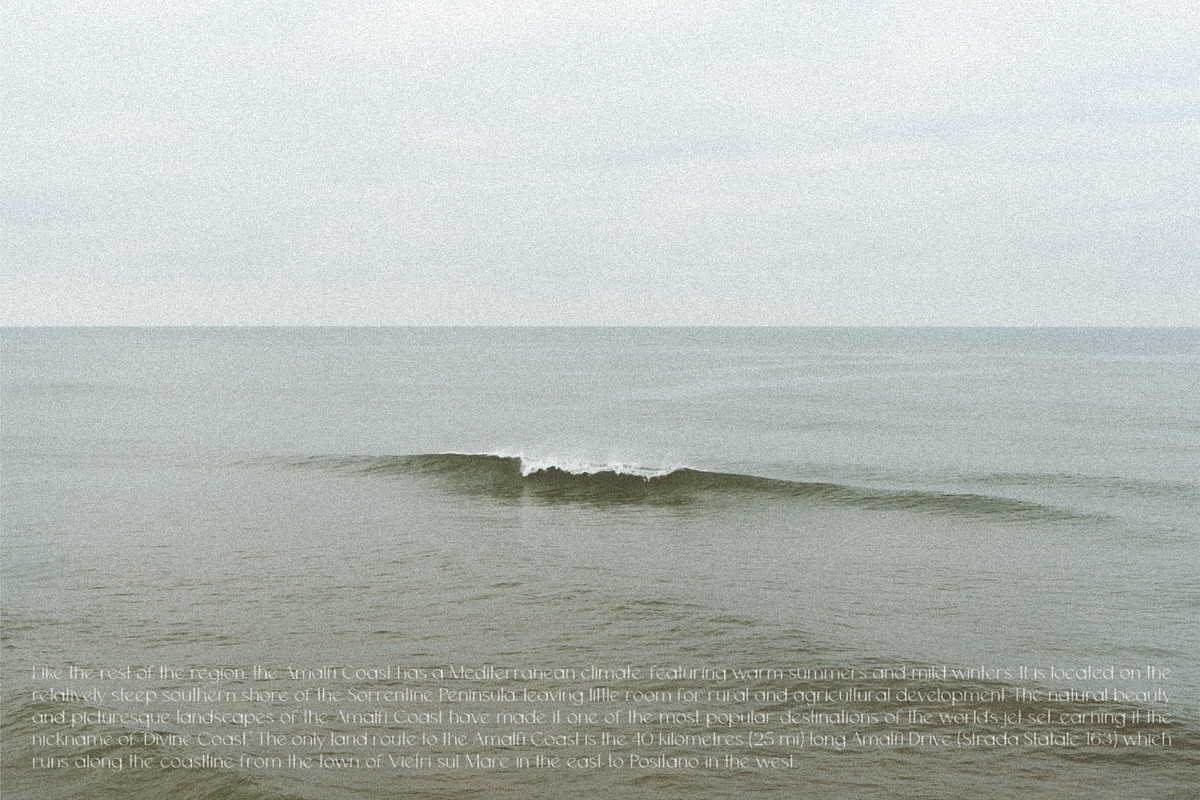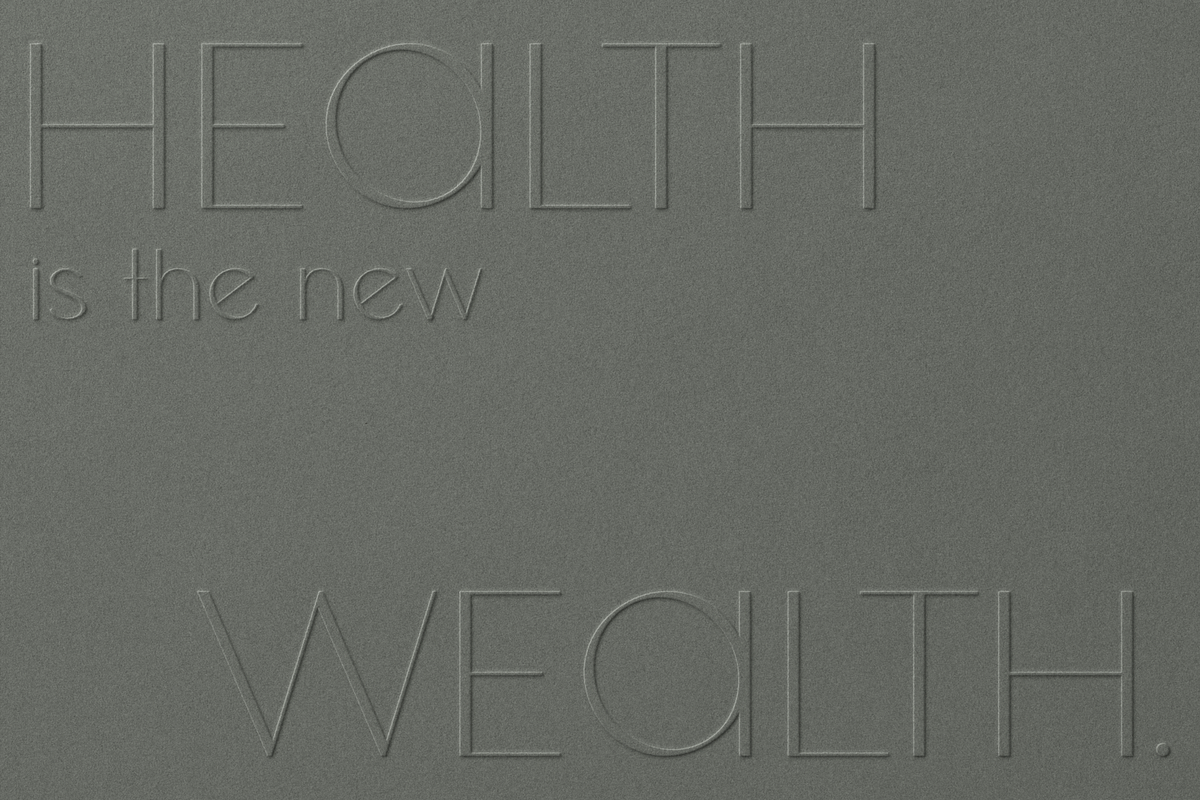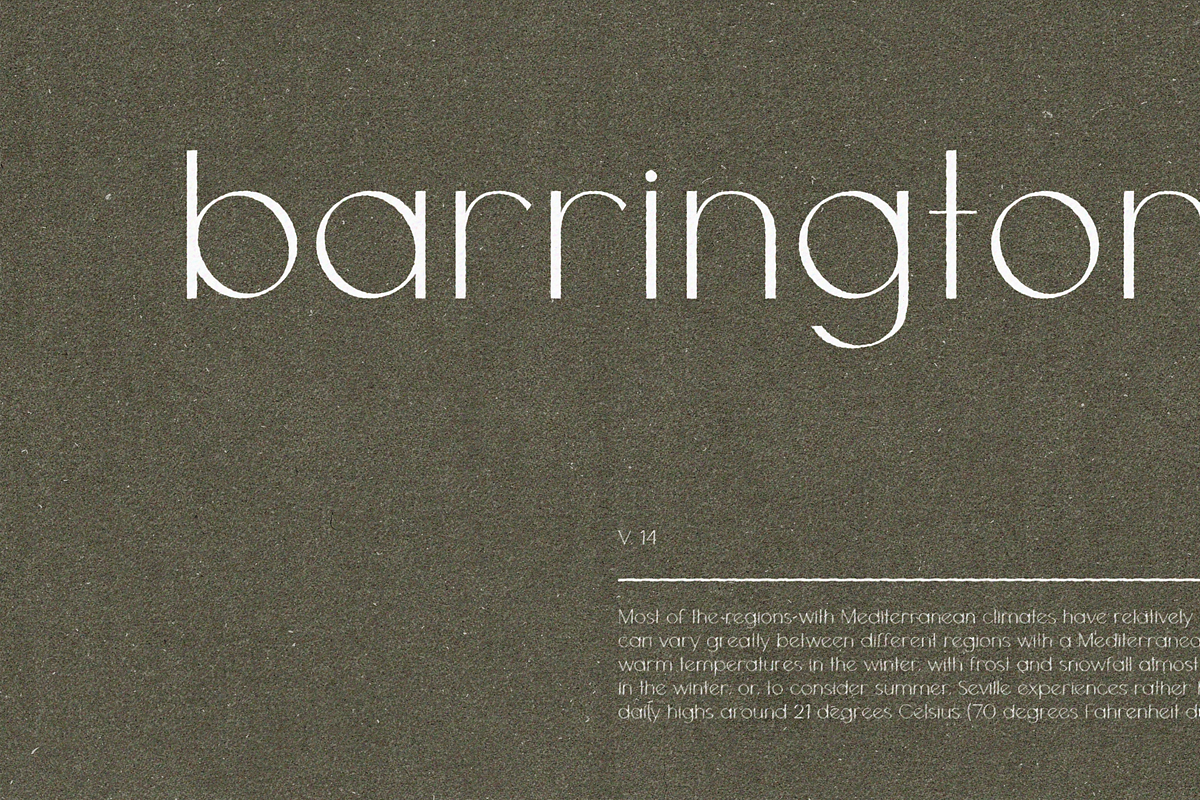
Almond Font
Almond is a sans serif font with clean lines and scroll-stopping contrast strokes. Perfect for logos and branding, monograms, posters, website headers and subheaders, invitations, editorial design, and more.
Pairs beautifully with minimal san serifs and classic scripts. The font includes upper and lowercase characters, ligatures, alternates, numbers, and a range of punctuation and symbols.